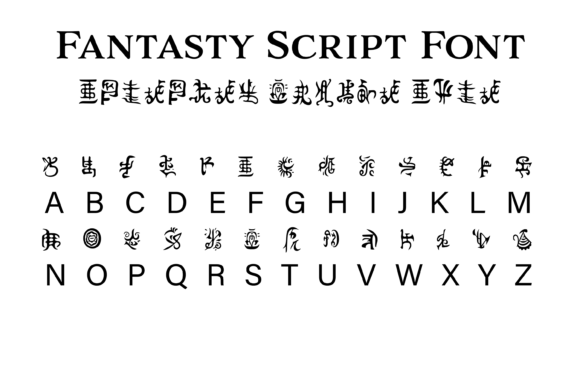
Fantasy Script 11 Font: The Perfect Addition to Your Next Dungeons and Dragons Campaign
Are you looking for a unique and captivating font to enhance your next Dungeons and Dragons campaign, fantasy LARP adventure, or novel? Look no further than the Fantasy Script 11 Font. This enchanting font is designed to transport your players and readers to a world of magic and wonder. In this article, we’ll explore the features and benefits of the Fantasy Script 11 Font and how it can elevate your storytelling experience.
What is Fantasy Script 11 Font?
Fantasy Script 11 Font is a specially crafted font designed to evoke the mystique and allure of fantasy worlds. This font is perfect for creating captivating titles, headings, and text that will immerse your audience in the world of fantasy. The font includes the standard English alphabet and basic punctuation, making it easy to use for a variety of applications.
Key Features of Fantasy Script 11 Font
- Standard English Alphabet: The font includes a complete set of uppercase and lowercase letters, making it suitable for a wide range of uses.
- Basic Punctuation: The font includes essential punctuation marks, ensuring that you can create professional-looking text.
- Fantasy-Inspired Design: The font’s design is inspired by the magic and mystery of fantasy worlds, making it perfect for creating an immersive experience.
Why Choose Fantasy Script 11 Font for Your Dungeons and Dragons Campaign?
Dungeons and Dragons is all about creating an immersive experience for your players. The right font can help set the tone and atmosphere for your campaign. Fantasy Script 11 Font is the perfect choice for several reasons:
Benefits for Your Dungeons and Dragons Campaign
- Creates a Fantasy Atmosphere: The font’s design will transport your players to a world of magic and wonder, setting the tone for an epic adventure.
- Enhances Storytelling: The font’s unique design will add a touch of elegance and sophistication to your campaign materials, making your story more engaging and memorable.
- Customization Options: You can use the font to create customized campaign materials, such as character sheets, maps, and handouts, to enhance the player experience.
Using Fantasy Script 11 Font for Your Novel or Book
If you’re a novelist or author looking to add a touch of fantasy to your book, Fantasy Script 11 Font is an excellent choice. The font’s design will help you create a captivating and immersive experience for your readers.
Benefits for Your Novel or Book
- Creates a Unique Identity: The font’s design will help your book stand out from the crowd, giving it a unique and memorable identity.
- Enhances World-Building: The font’s fantasy-inspired design will help you create a rich and immersive world that will draw your readers in.
- Professional-Looking Text: The font’s clean and elegant design ensures that your text will look professional and polished, making your book more appealing to readers.
Tips for Using Fantasy Script 11 Font
To get the most out of Fantasy Script 11 Font, here are some tips to keep in mind:
Tips for Using Fantasy Script 11 Font
- Use it for Headings and Titles: The font’s design is perfect for creating captivating headings and titles that will grab the attention of your audience.
- Mix it with Other Fonts: Experiment with combining Fantasy Script 11 Font with other fonts to create a unique and visually appealing design.
- Adjust Font Size and Color: Don’t be afraid to adjust the font size and color to suit your needs and create a cohesive design.
Fantasy Script 11 Font is a powerful tool for anyone looking to create an immersive and captivating experience for their audience. Whether you’re a Dungeons and Dragons player, a novelist, or simply someone who loves fantasy, this font is sure to inspire and delight. With its unique design, standard English alphabet, and basic punctuation, Fantasy Script 11 Font is the perfect addition to your next project.